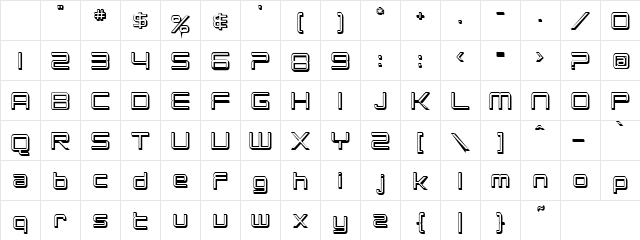
Planet Straight Regular
Design Context for Planet Straight Typeface
Planet Straight is a composed and adaptable typeface that performs quietly and consistently across a wide range of design contexts.